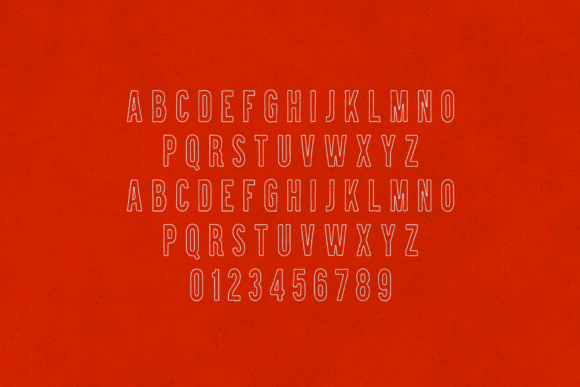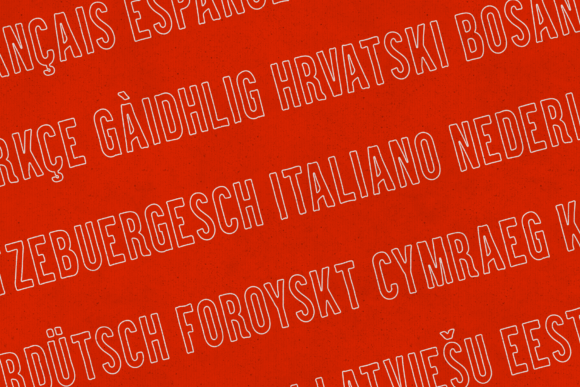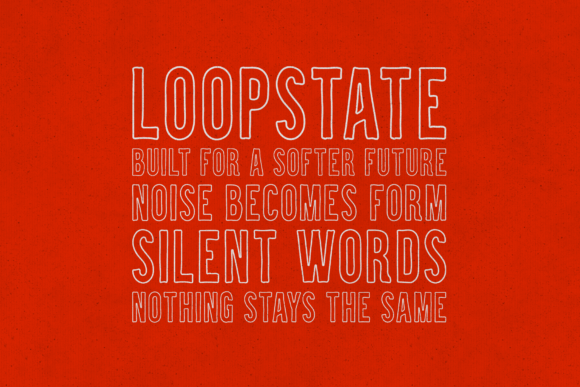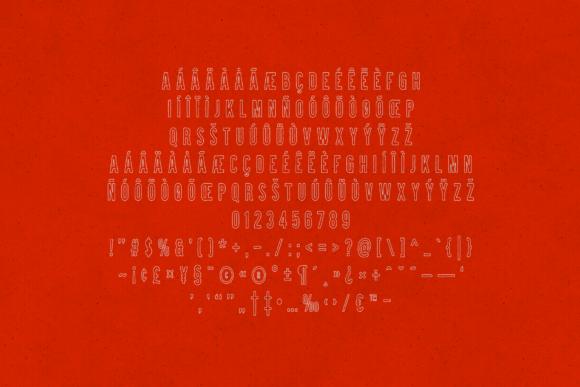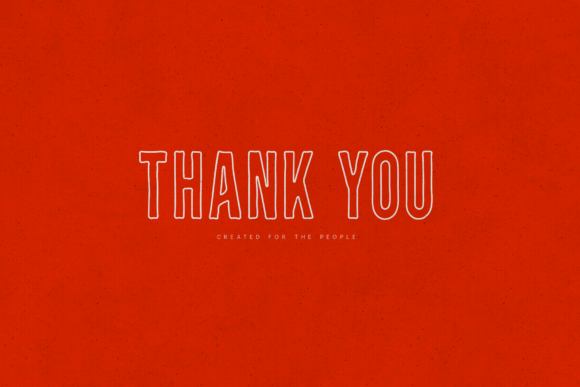
The Perfect Blend of Strength and Sophistication
Have you ever been brainstorming a new project, surrounded by scraps of paper, pens, and an endless stream of ideas? The moment of truth arrives when you need to bring your concept to life with typography. That’s where the perfect font comes in – one that not only conveys your message but also adds a touch of personality to your design. For those seeking a bold and expressive display font, look no further than Brawn Font.
Brawn Font, with its hand-drawn outlines and confident letterforms, is designed to stand out in headlines, posters, and branding materials. Its outlined construction adds depth and personality while remaining clean and highly readable. This versatile font is a valuable asset for designers, offering a unique blend of strength and sophistication that can elevate any project. With its multilingual support and professional-grade formatting, Brawn Font is the perfect choice for both print and digital designs.
Brawn Font Key Features
- Font Family: Brawn Font is a sans-serif font family designed for modern and industrial designs. It is available in two weights: Regular and Bold.
- Character Count: The font family includes a wide range of characters, including Latin, Cyrillic, and Greek alphabets, as well as punctuation marks and symbols.
- Unique Characteristics: Brawn Font features a unique blend of modern and industrial design elements, with clean lines, geometric shapes, and a bold, futuristic feel.
Brawn Font Review
I recently had the chance to work with the Brawn font, and I must say it’s been an interesting experience. Here are my honest thoughts on what works well and what doesn’t.
- Unique Character: Brawn has a distinct, rugged feel that sets it apart from more generic sans-serif fonts. It’s perfect for projects that need a bit of edge.
- Strong Readability: Despite its bold appearance, Brawn is surprisingly easy to read, even at smaller font sizes.
- Good for Display Text: Brawn shines when used for display text, such as headings and titles. It adds a touch of sophistication and authority.
- Limited Legibility in Small Text: While Brawn is readable at larger sizes, it can become quite difficult to read when used in smaller text. This might be a problem for body text or fine print.
- Lacks Versatility: Brawn’s unique style might be a double-edged sword. While it’s great for some projects, it might not be the best fit for more conservative or formal designs.
Overall, I think Brawn is a solid choice for designers who want to add some grit and personality to their projects. However, it’s essential to use it judiciously and consider its limitations before committing to it.
Tips for Getting the Most Out of Brawn Font
To get the most out of Brawn Font, use it for titles and headings to add a bold and striking effect. Also, pair it with a clean and simple font for body text to create a visually appealing contrast.
Brawn Font is commonly used for:
– Sports branding and marketing materials
– Fitness and wellness websites and social media
– Headlines and titles for creative and bold designs